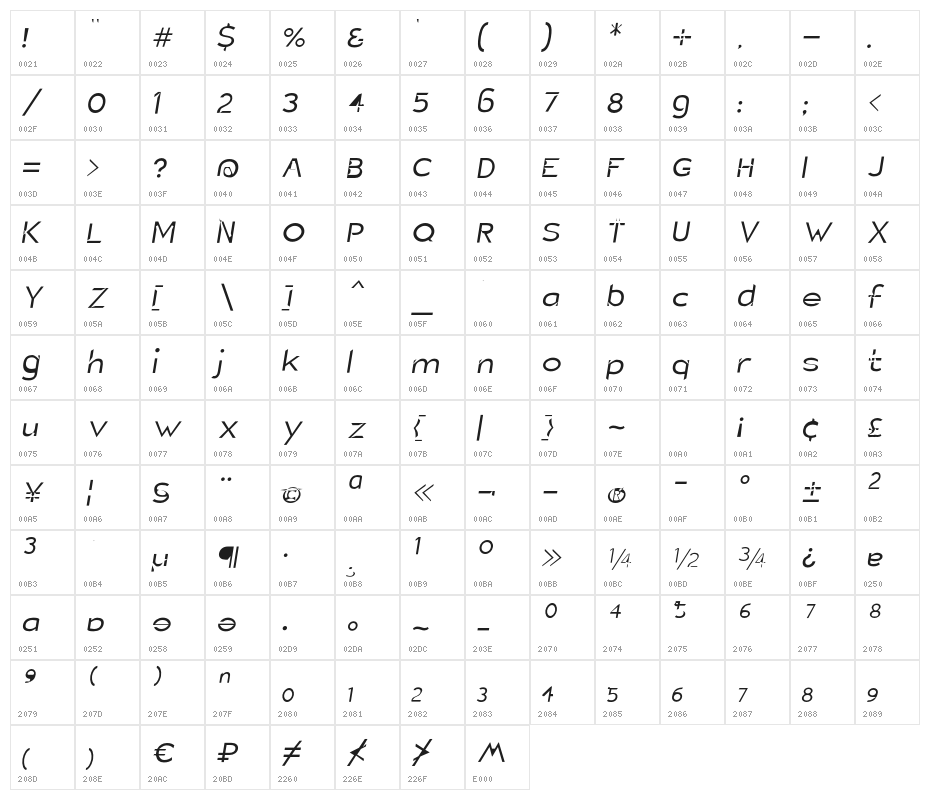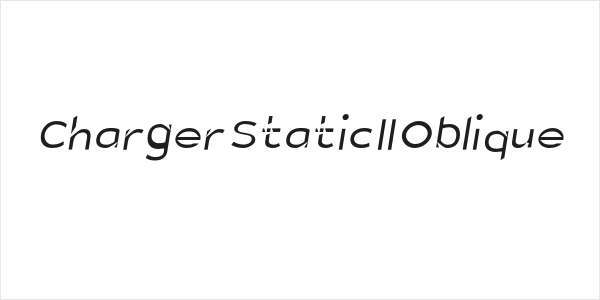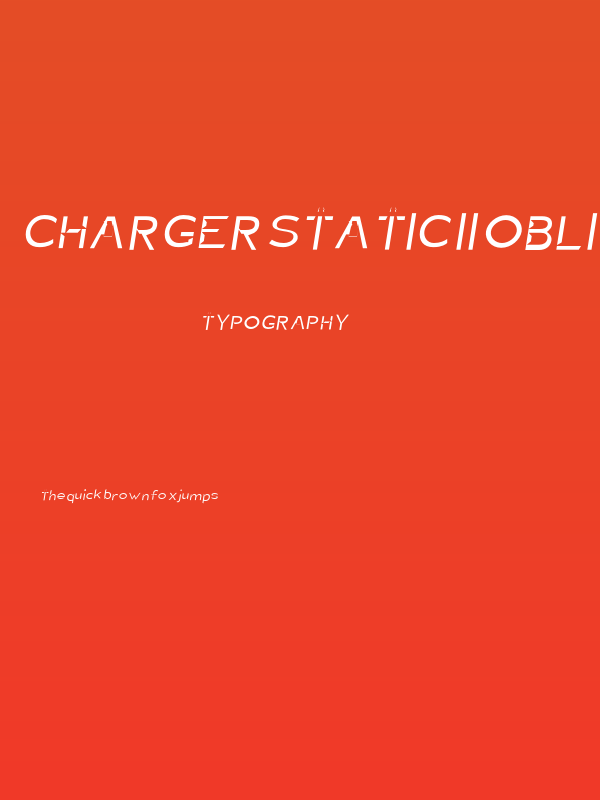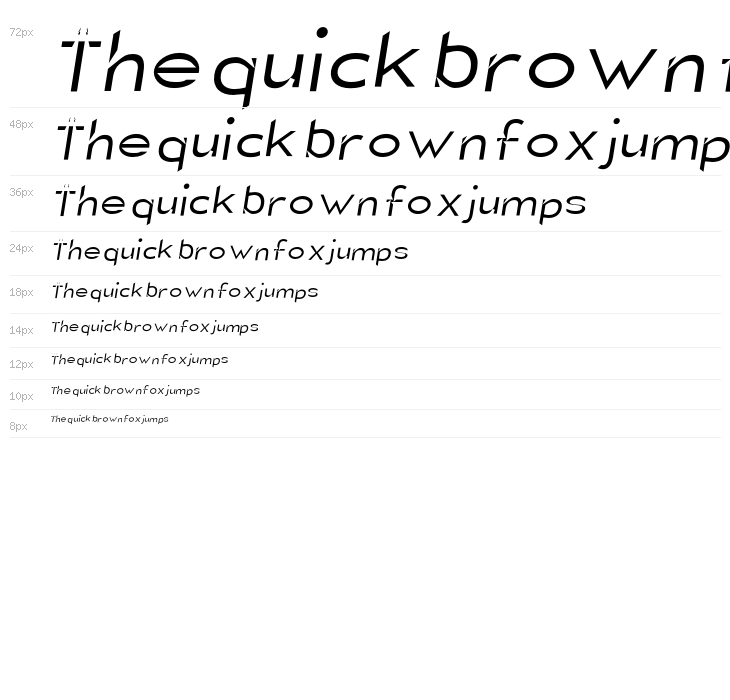
Charger Static II Oblique Font
Charger Static II Oblique Description
This font exhibits a dynamic and energetic style with its oblique orientation, giving a sense of motion and speed. The characters are sleek and modern, featuring sharp angles and clean lines that enhance its futuristic appeal. The uppercase letters are bold and assertive, while the lowercase letters maintain a consistent flow, complementing the overall aesthetic. The numerals are distinct and easy to read, making them suitable for various applications. Special characters are well-integrated, maintaining the font's cohesive look. This font is ideal for projects that require a contemporary and innovative touch.
| Proposed Projects | Ideal for branding, sports team logos, automotive designs, and tech-related projects. |